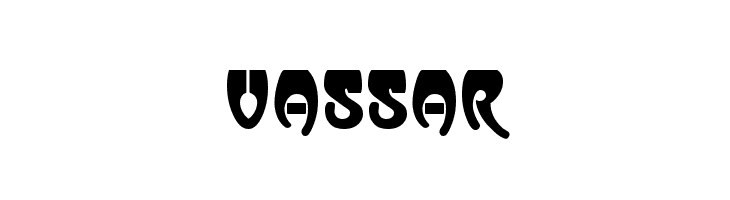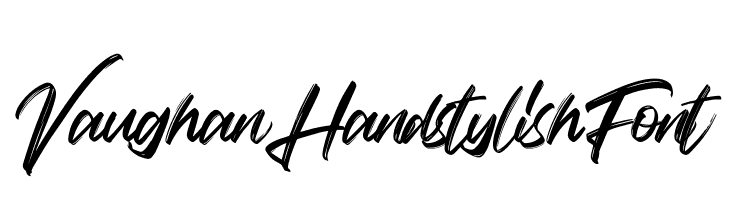
A bold, retro-style font with thick, rounded strokes and unique character shapes.
A bold, expressive handwritten font with dynamic strokes and artistic flair.